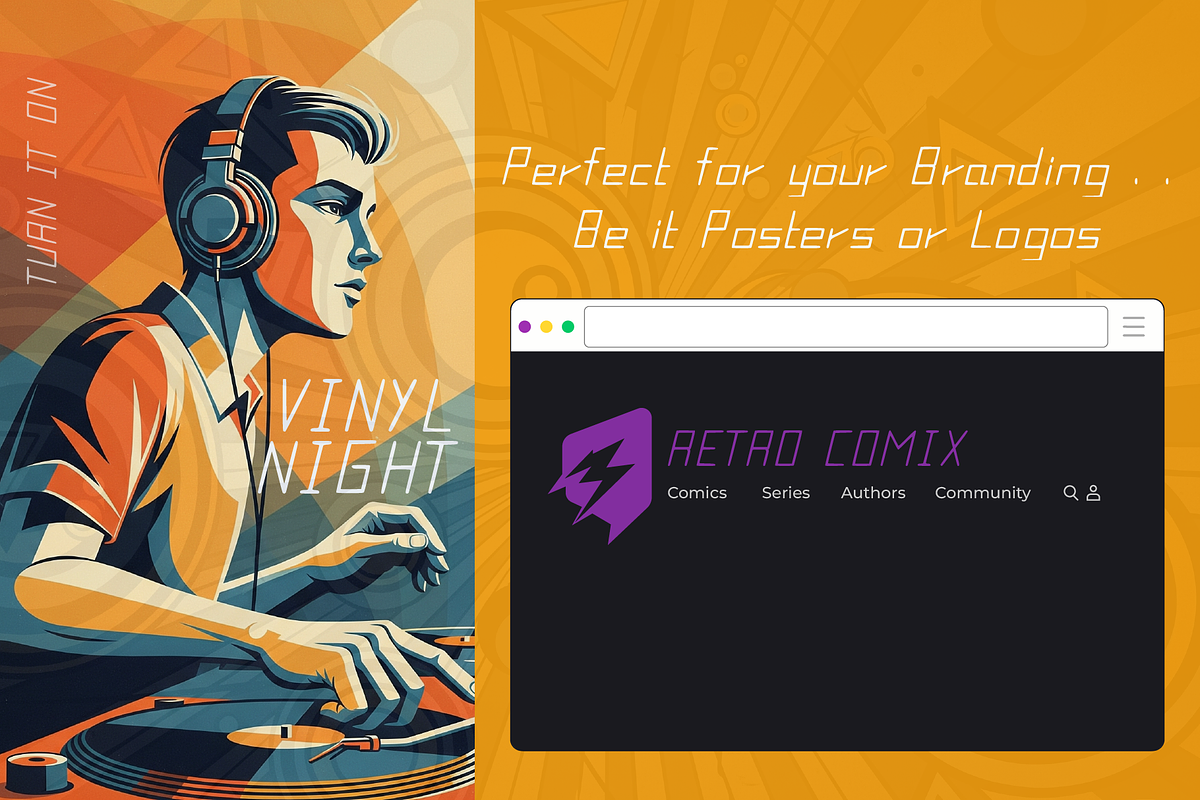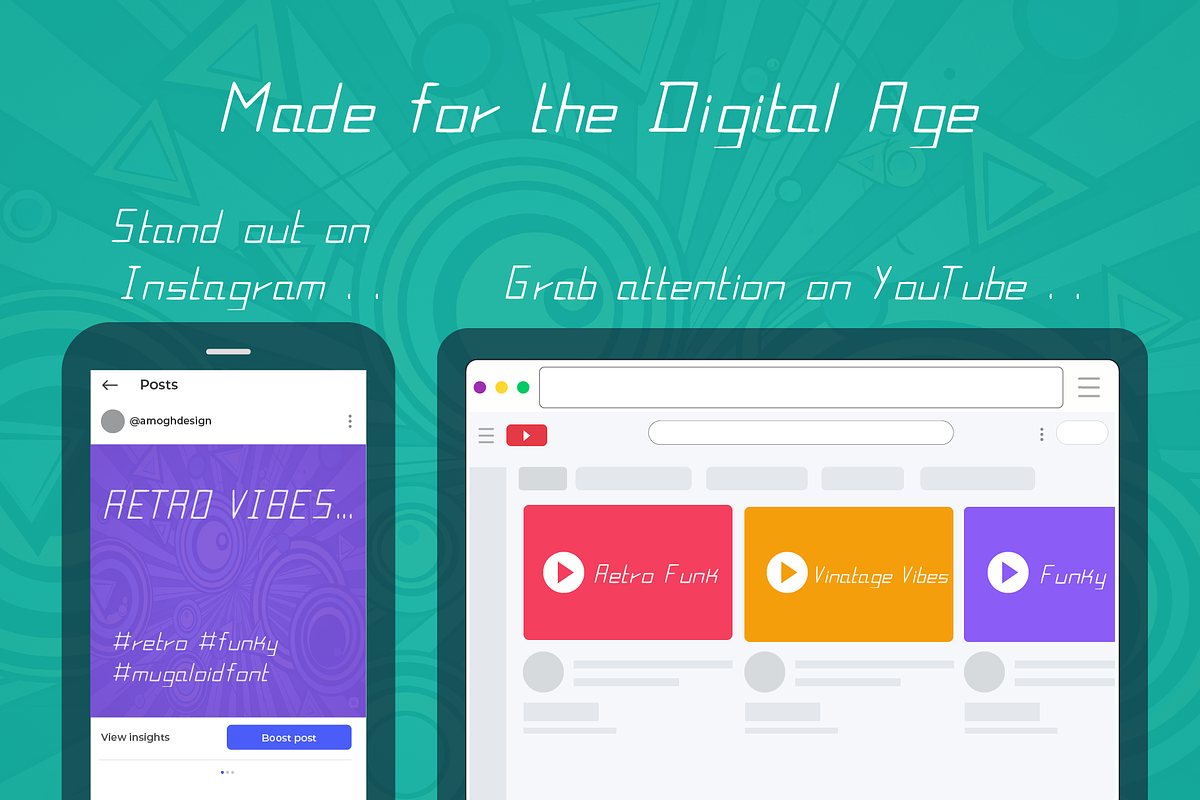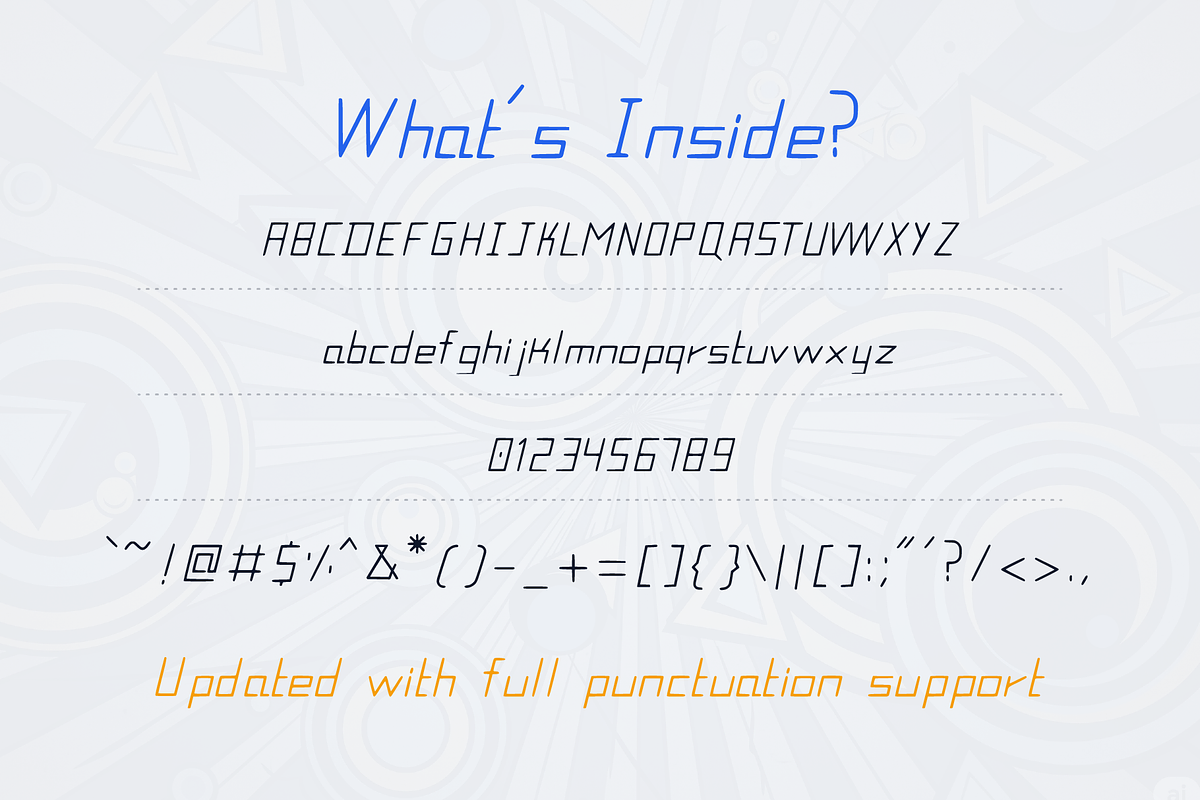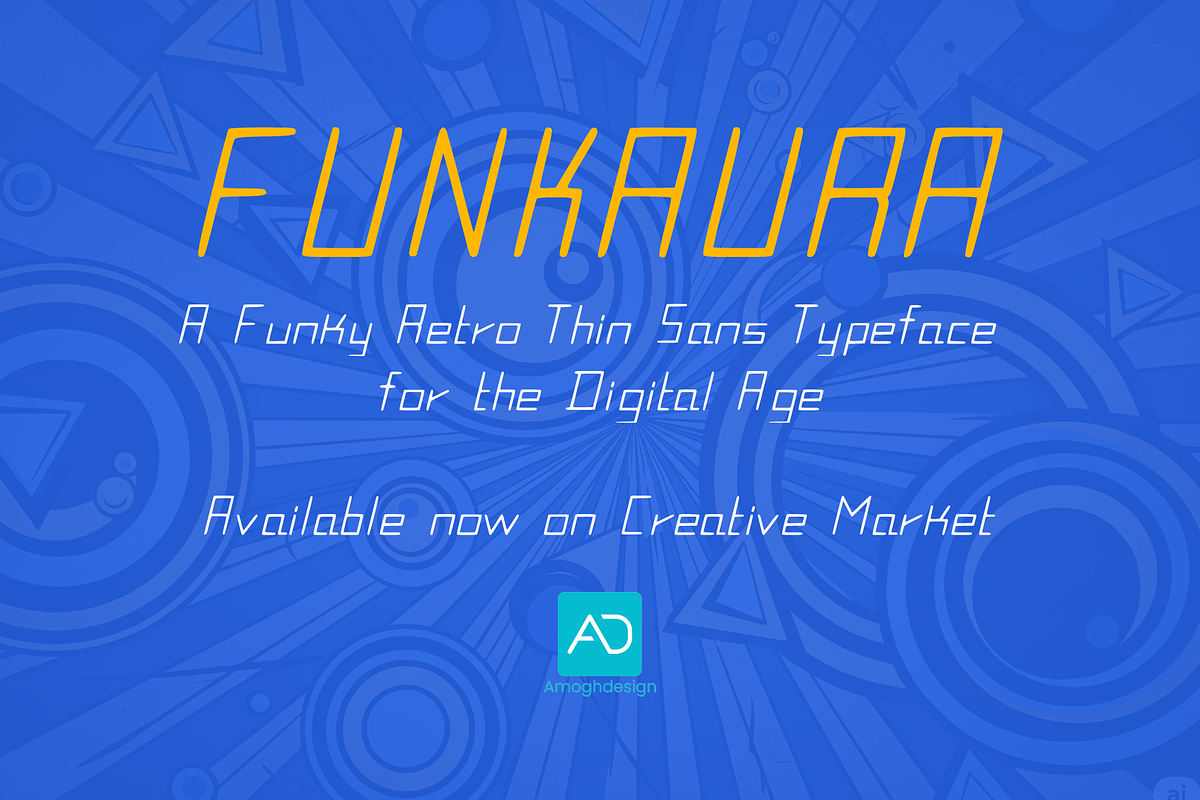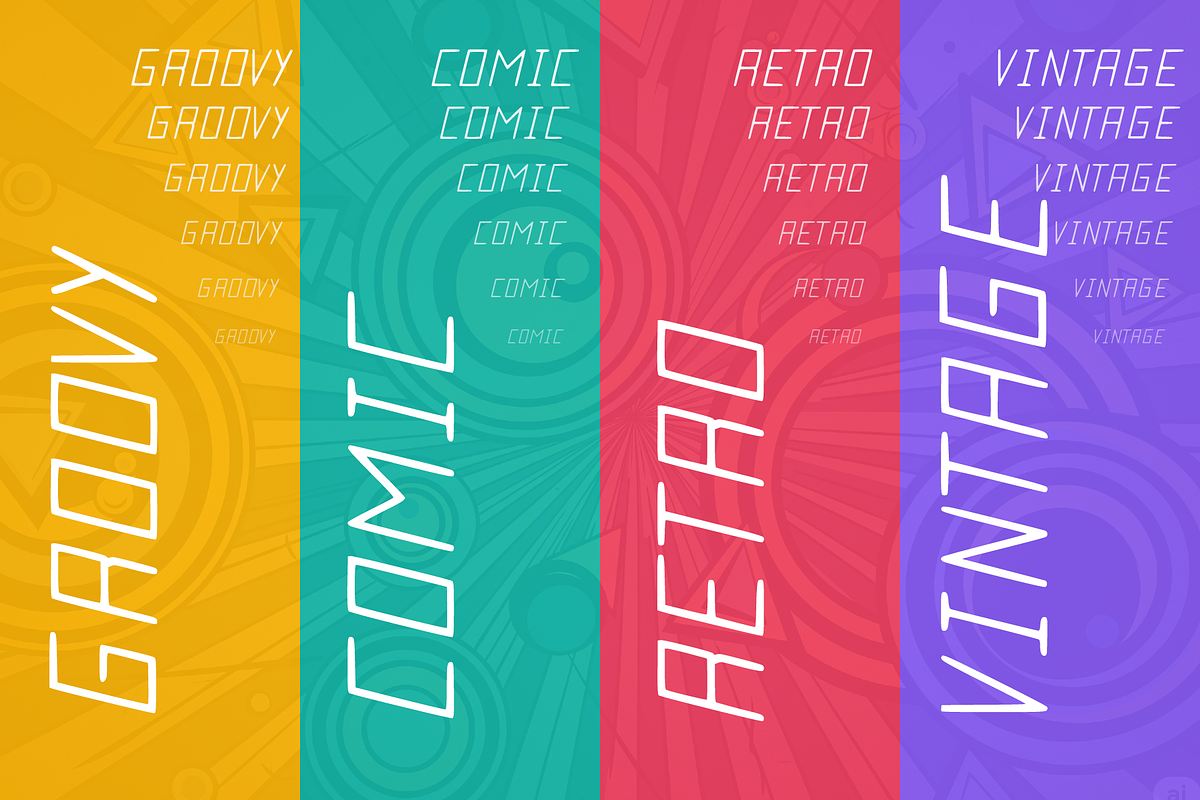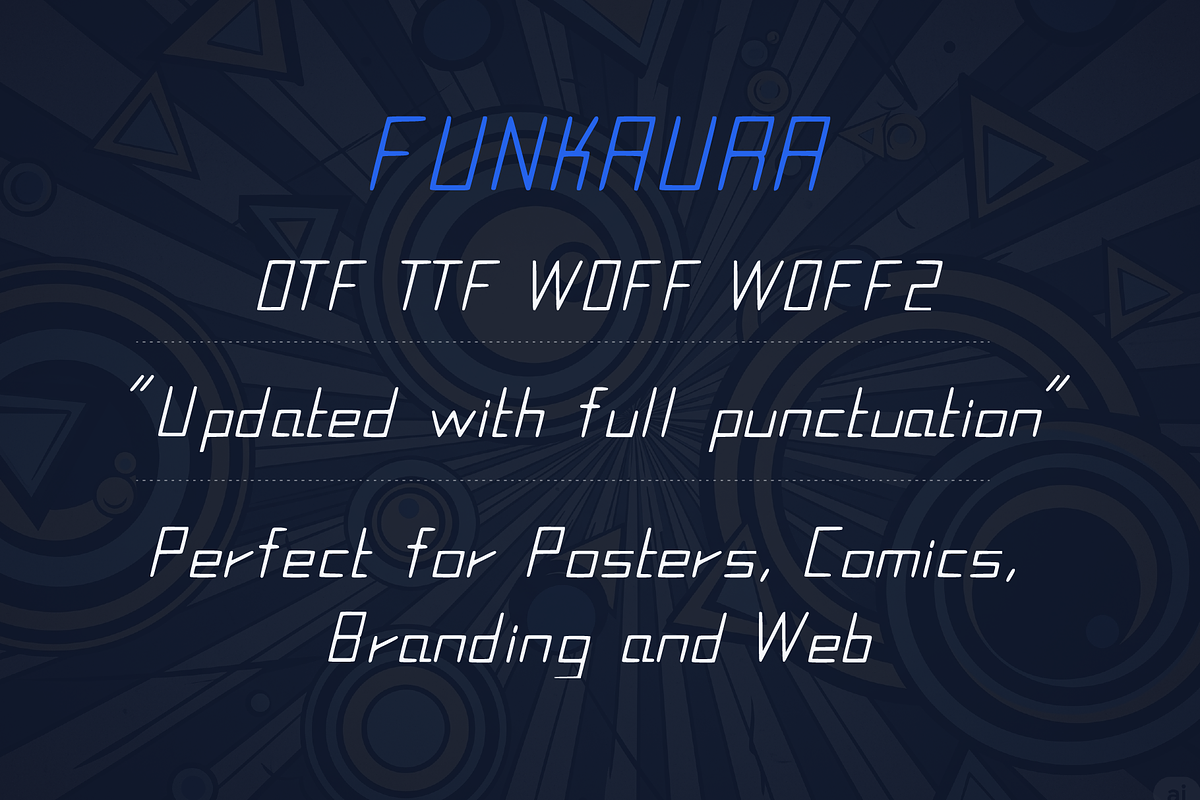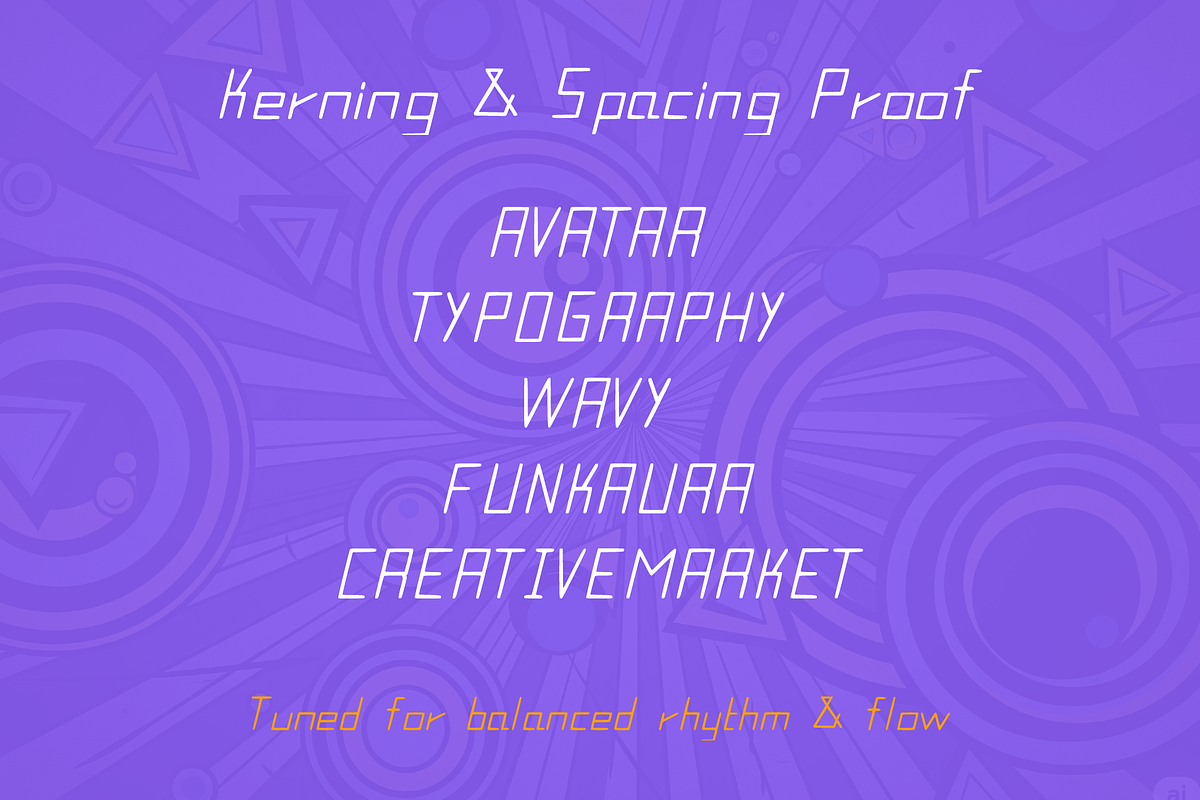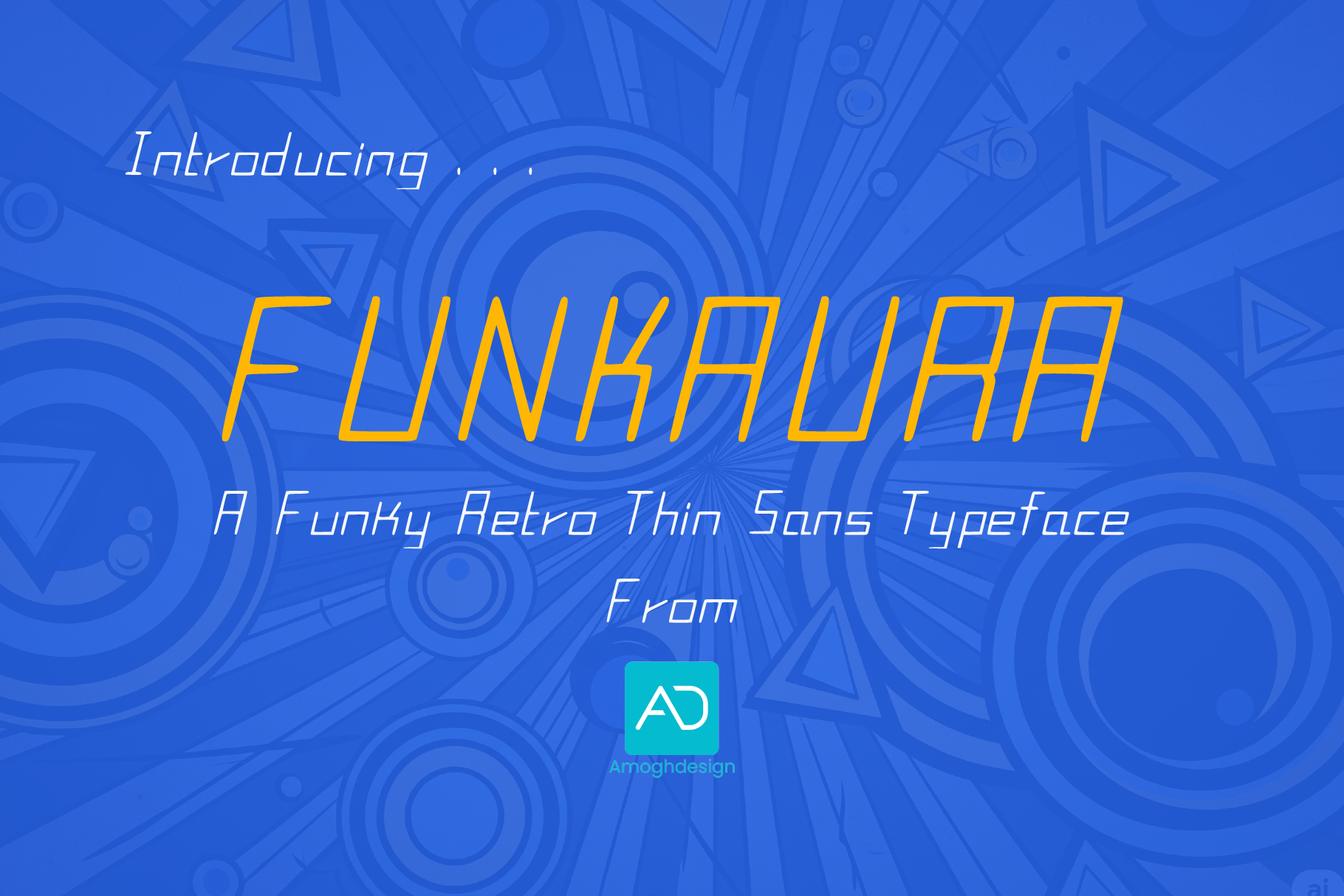
Funkaura - Funky Retro Display Font
Introducing Funkaura, a funky retro-inspired thin sans typeface designed for bold, creative expression. Born from the fusion of vintage newspaper serifs and playful comic lettering, Funkaura brings a unique retro-modern vibe that’s both stylish and versatile.
Its updated character set, balanced proportions, and improved kerning make it a powerful choice for display typography across digital and print.
Full Latin alphabet (A–Z, a–z)
Numbers, punctuation, symbols
Updated with full punctuation support
👉 Designed for display use – best at medium to large sizes.